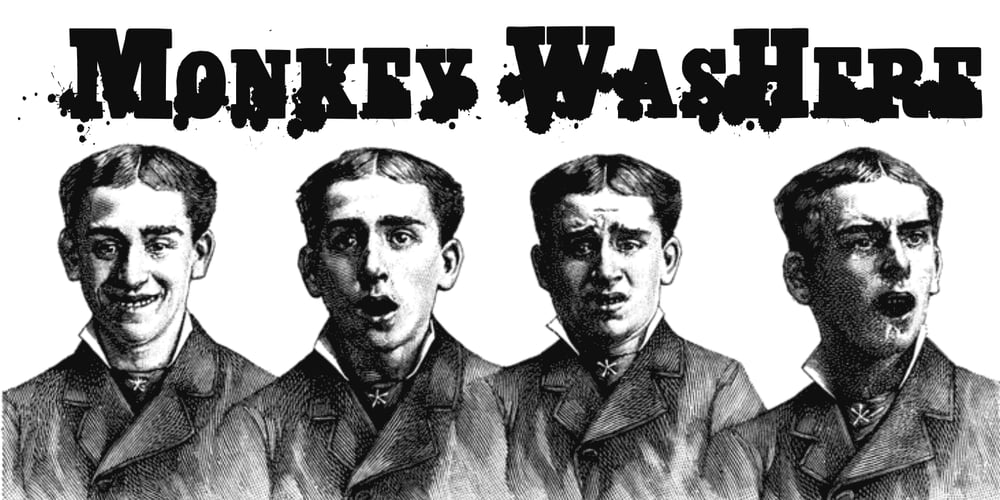
Monkey Was Here
Monkey Was Here font
Monkey Was Here Font Family was designed by Paulo W and published by Intellecta Design. Monkey Was Here contains 1 styles and family package options. A collection of fonts by the type foundry Intellecta Design. Distressed and antique, use these fonts in display purposes for a stylized type design. Contains a limited amount of letter designs.